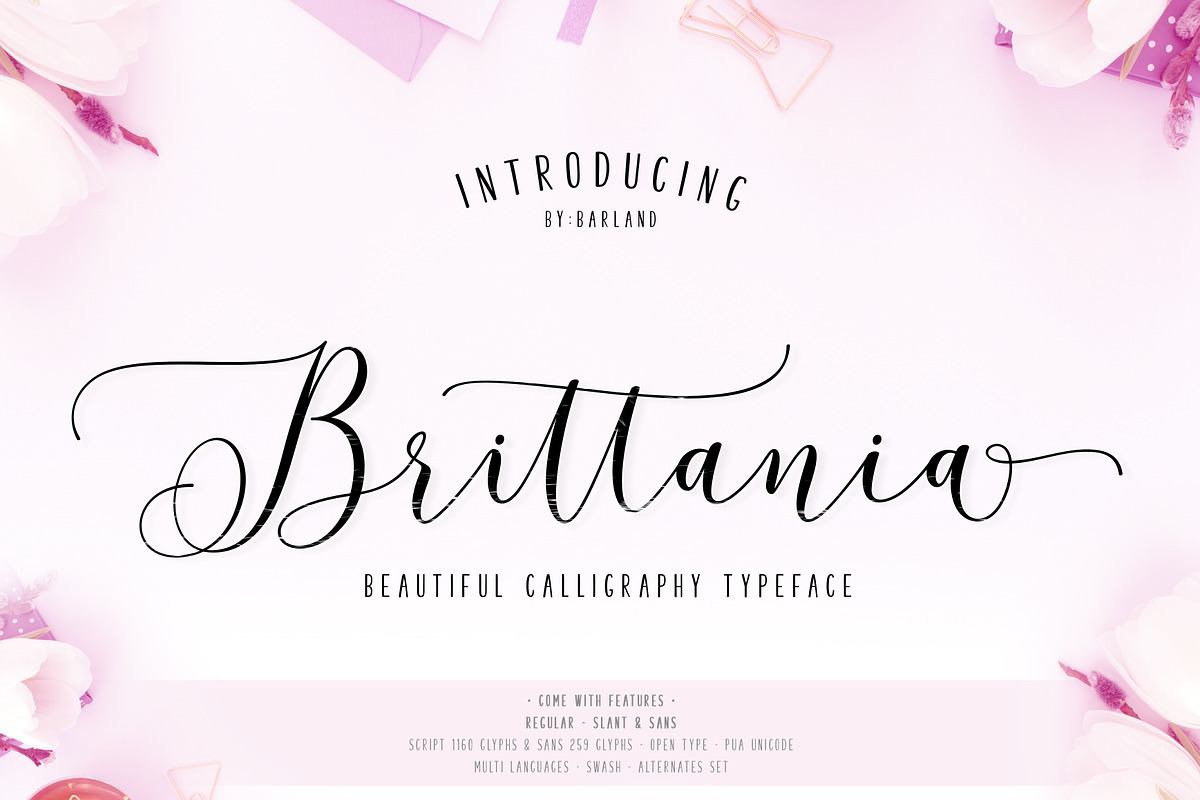
Brittania Script Font Free Download
Brittania Script Font Free Download is a stunning and sophisticated script typeface that blends modern elegance with classic calligraphy. With its smooth, flowing curves and stylish ligatures, this font is perfect for wedding invitations, branding, beauty packaging, social media posts, and editorial designs that demand a graceful and luxurious touch.
Designed to feel both refined and personal, Brittania brings handwritten charm to your typography without sacrificing professionalism. Its high contrast strokes and delicate swashes make it especially effective for creating romantic, upscale visuals.